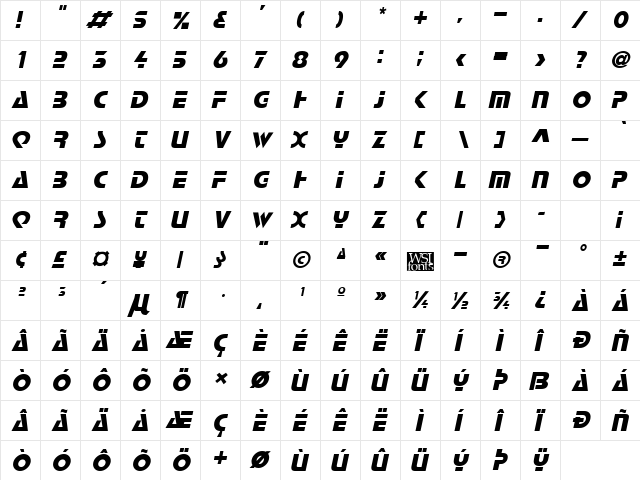
Logan Italic
Design Context for Logan Typeface
Logan takes a measured approach to typography — its balanced proportions and neutral character make it a reliable workhorse for both digital and print work. The slanted form adds forward momentum and visual energy.